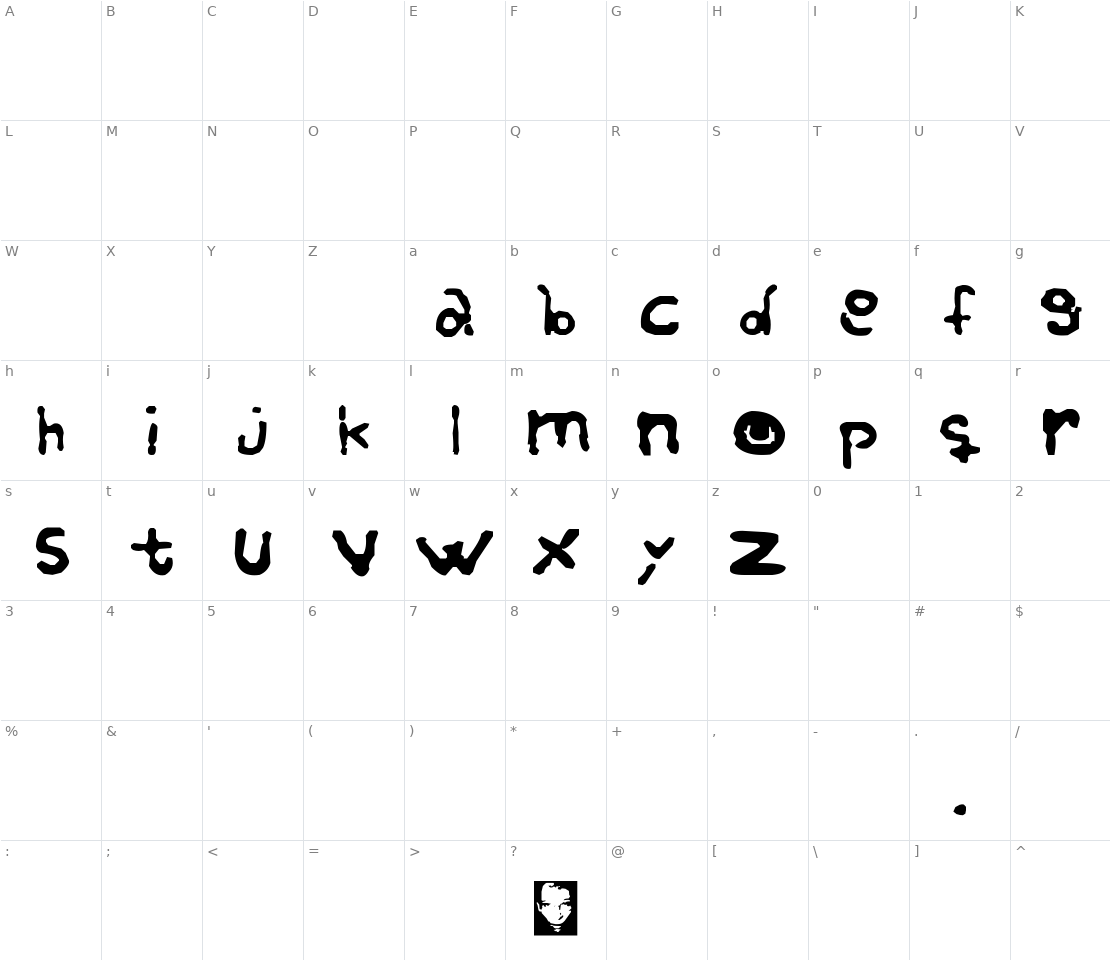
Reburried
Reburried is a heavy, blobby display face from Mr Fisk where every letterform looks like it's slowly melting into the ground. The organic, irregular shapes give it a horror-meets-quirky personality, as if the letters were dug up from somewhere they weren't supposed to be. Best kept to headlines and short text at large sizes, where its oozing, misshapen weight can do the most damage.